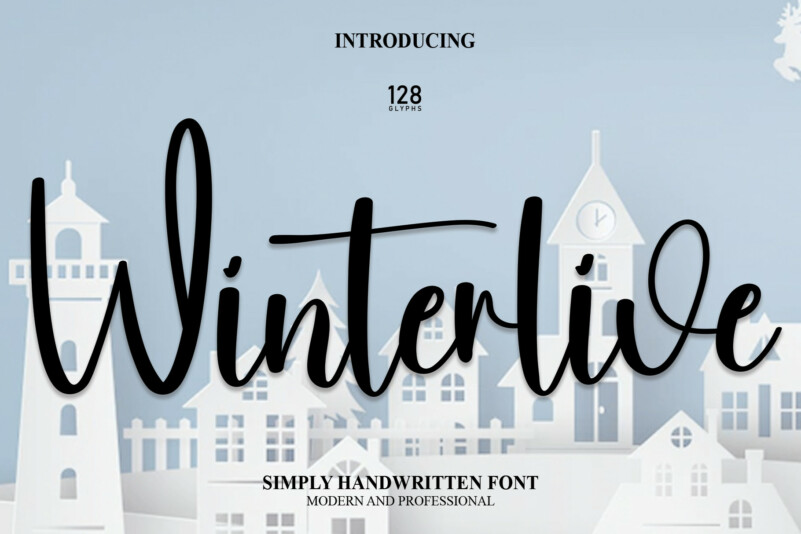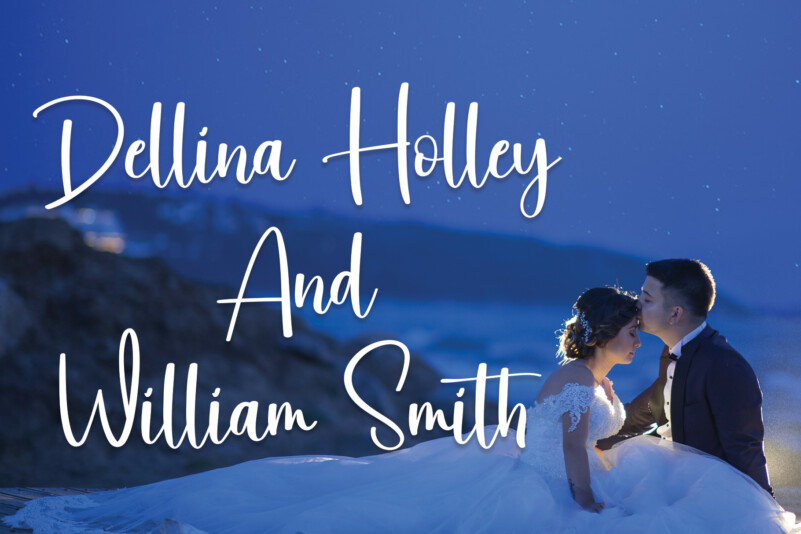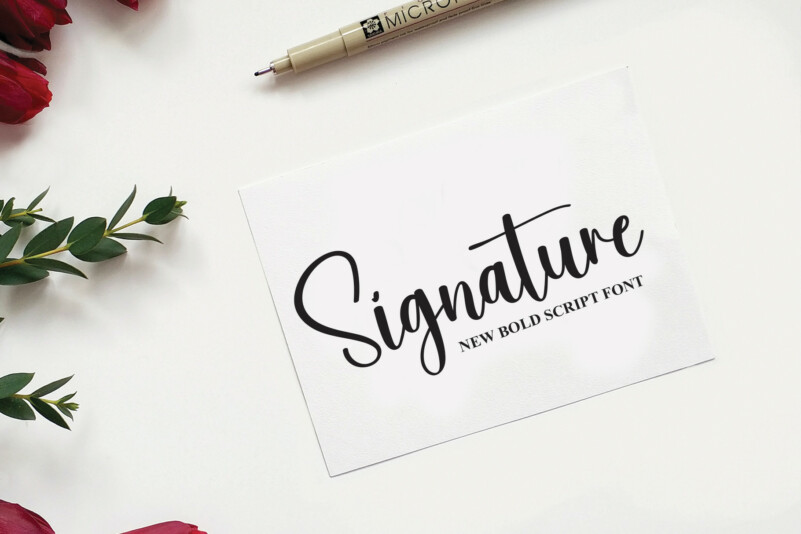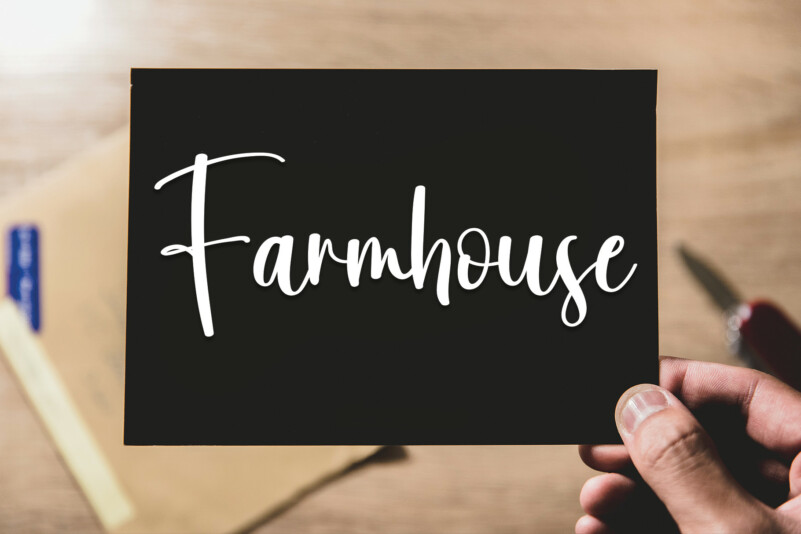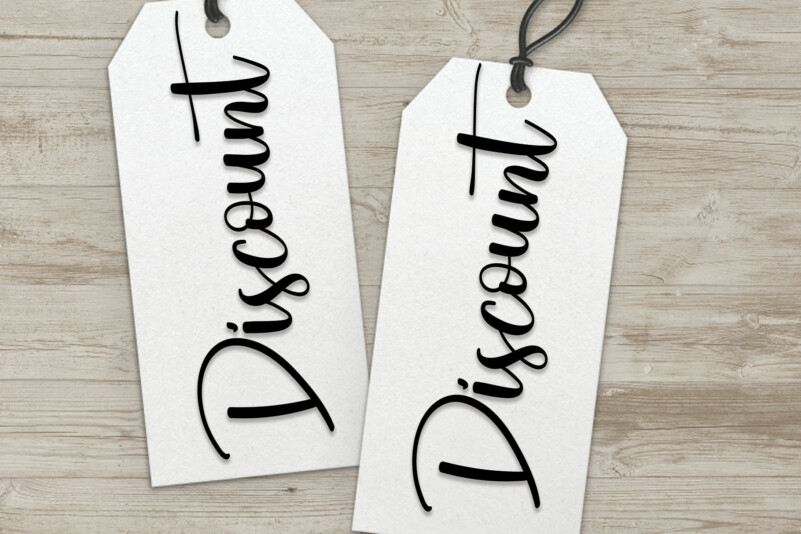
Winterlive Script Font
Winterlive Script Font is a sweet and romantic handwritten script font. Fall in love with its incredibly versatile style and use it to create gorgeous wedding invitations, beautiful stationary art, eye-catching social media posts, and much more!